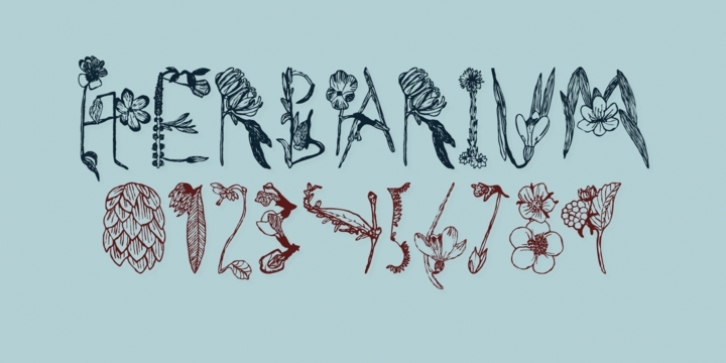
A colorful floral book that I found at a flea market inspired me to make the font Herbarium. What started as floral letter illustrations in 2009 has now developed into a writable font.
My main intention was to make each letter like a little artwork so that they all could fit as a drop cap. Herbarium is also a good choice for headlines.